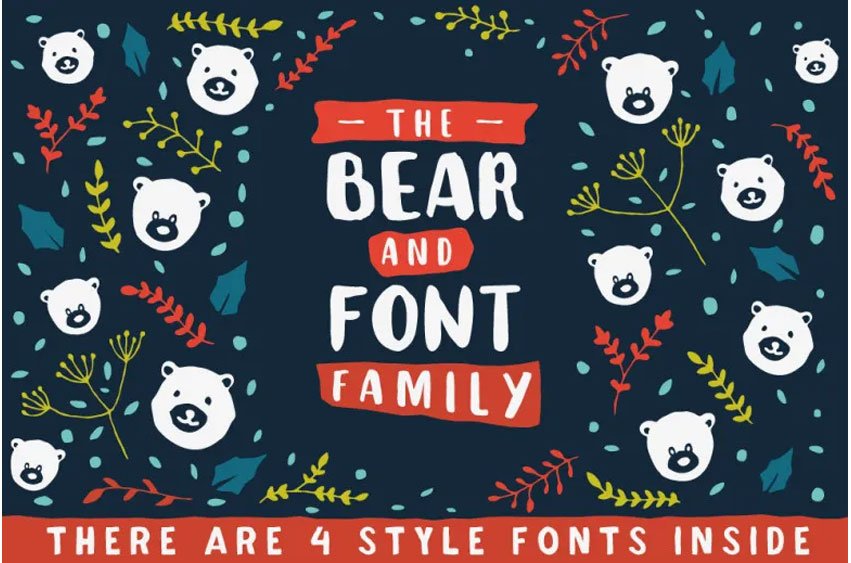
The Bear Font
The Bear FonT Typographic bear family. Since there are four cute bear designs that can create playful graphic designs with the help of this font type, this font is appropriate to be used in children’s book covers, food and non-food products’ packaging, hand-printed materials, and other graphics.
Typographic bear family. It is perfect for children’s book covers, food and beverage logos, hand-printed printing, and packaging: Fun Designs of the Bear can be generated by four bear designs not in any way related to the other font families described above.